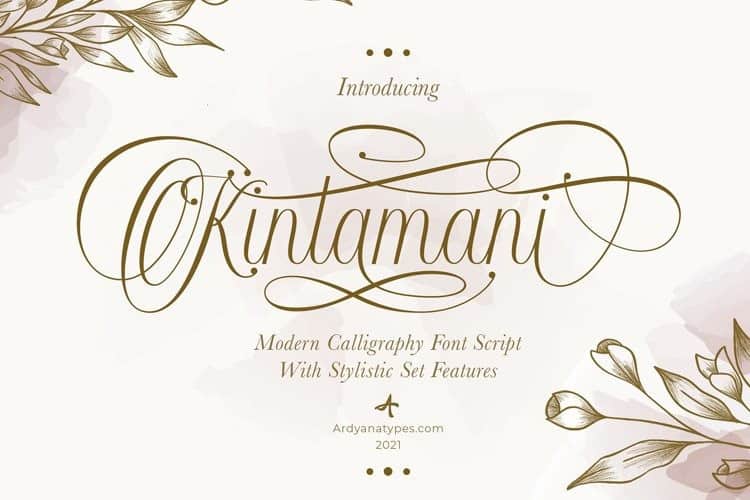
Kintamani Font
A Beautiful and classy script that has many swashes that allows you to create beautiful lettering instantly. it has many stylistic set alternates that you can choose from. Kintamani Script is made as natural as possible to create a beautiful and beautiful impression, this script is made for those who need a beautiful and graceful style so that it makes their design look more luxurious, this will be very suitable for use as wedding invitations, branding, fashion, titles books, business cards, and many more that can be combined with this Kintamani script.
Kintamani Scrip has many stylistic features that can be used so that it gives a different and more modern impression than the standard and also has a bonus flower hand drawing to complement and beautify the design. The Kintamani script includes a complete set of all the basic characters of upper and lower case, numbers and punctuation, and also has alternative ligatures and styles that can exquisitely give a natural impression.